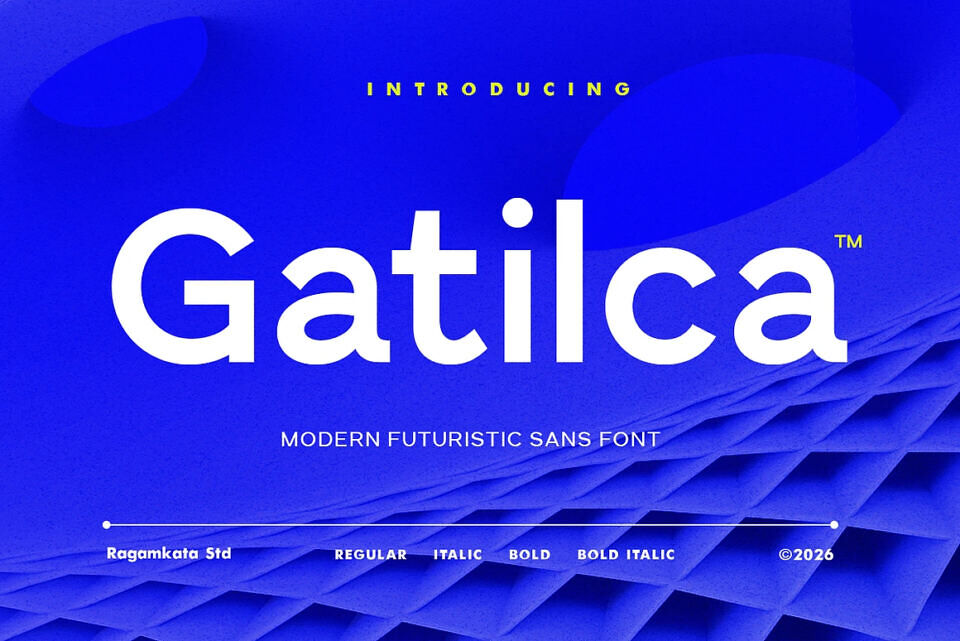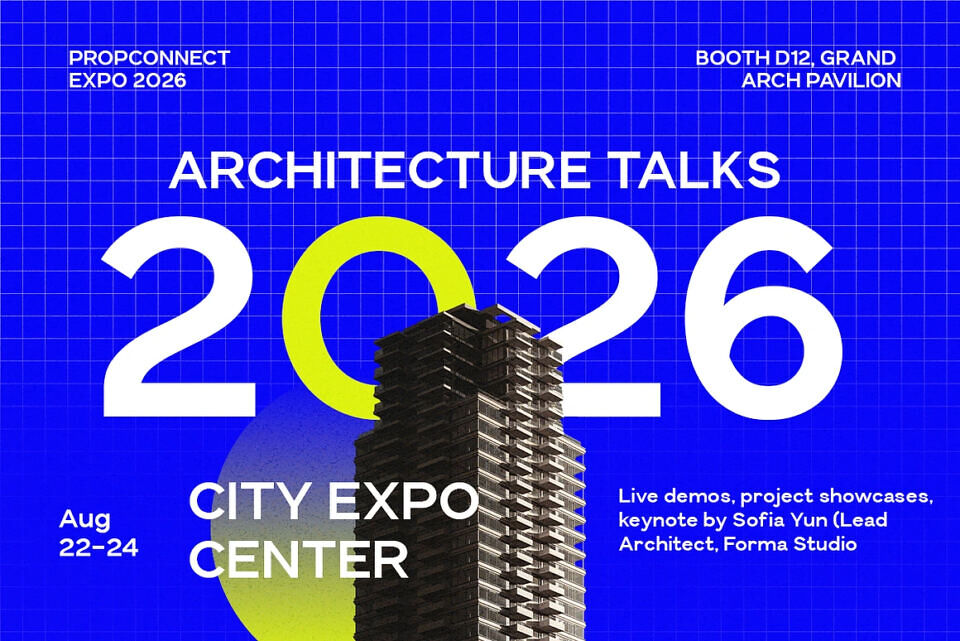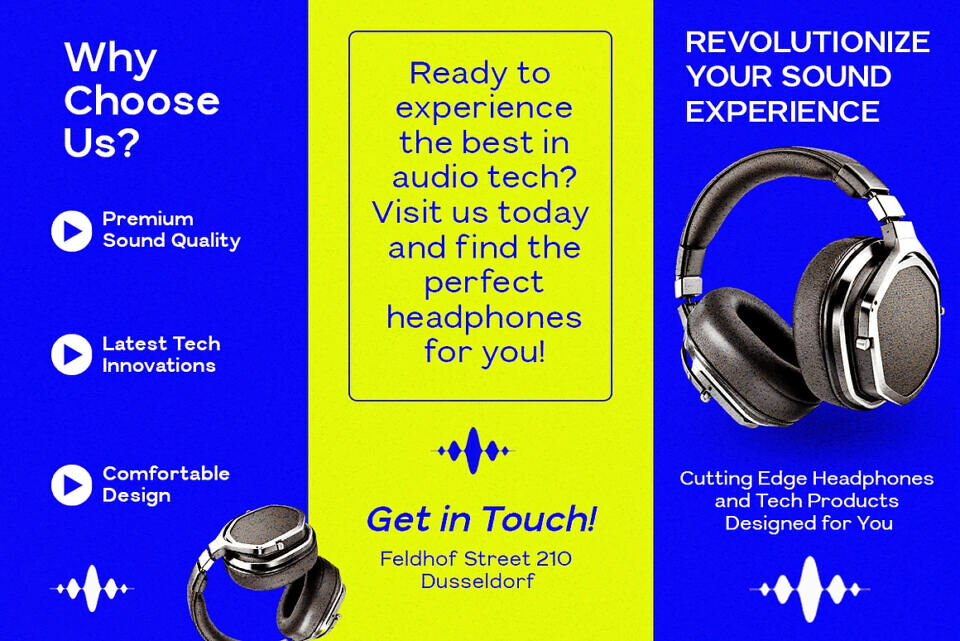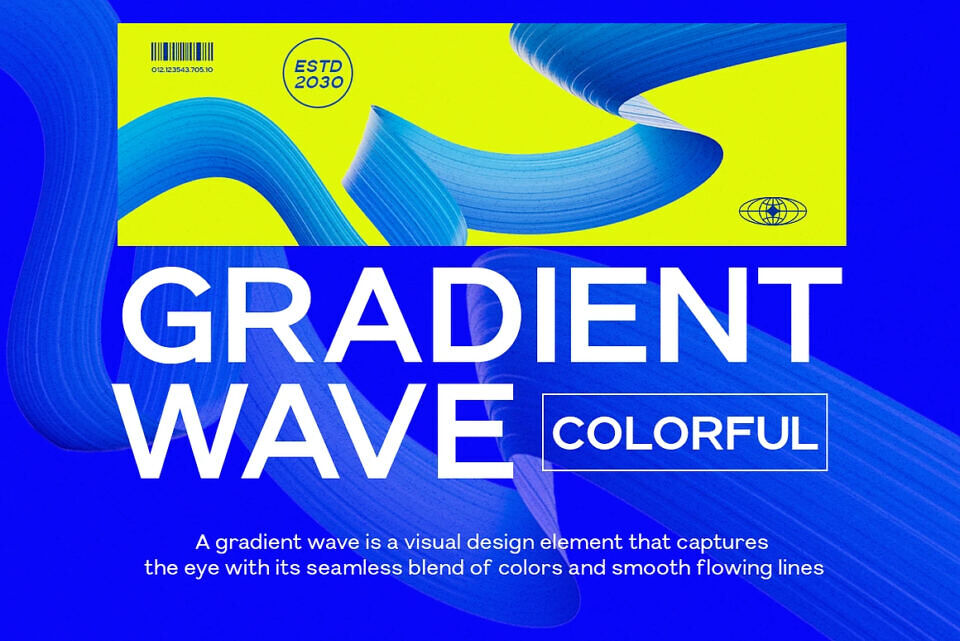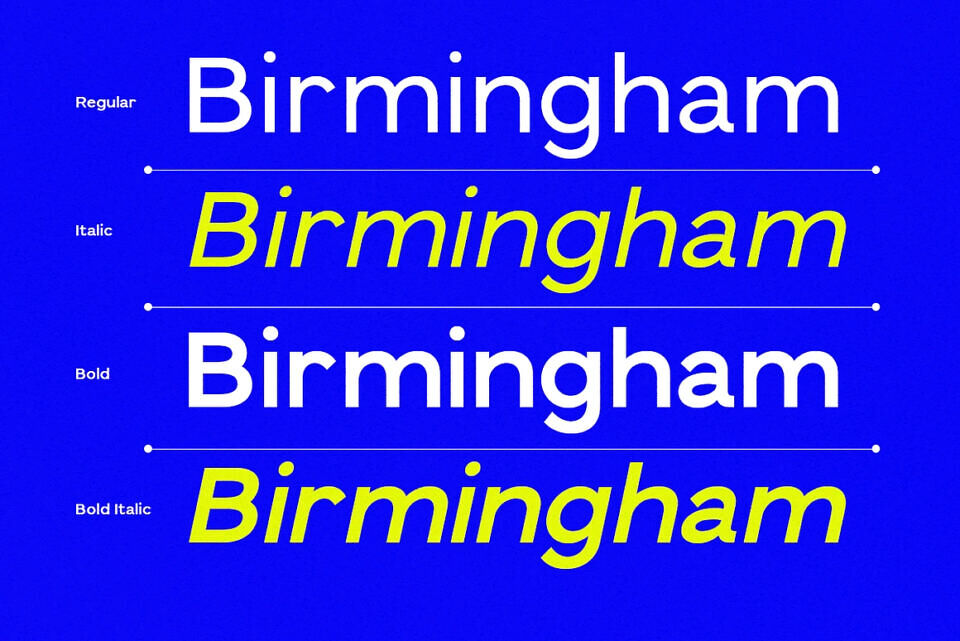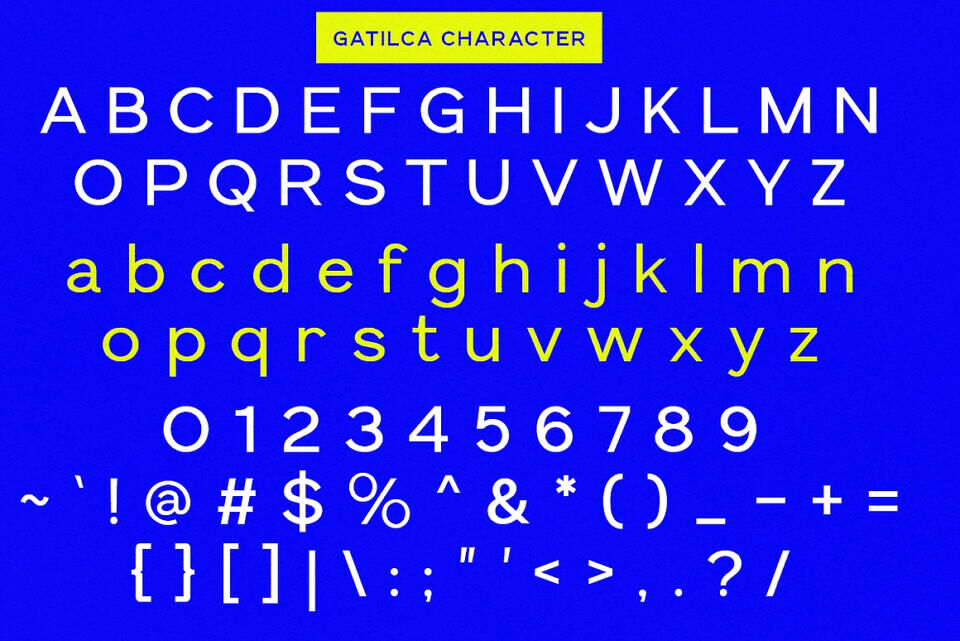
Gatilca is a modern futuristic sans font designed to deliver a clean, innovative, and forward-thinking visual identity. With its sleek geometric structure, balanced proportions, and contemporary letterforms, Gatilca brings a strong modern aesthetic that feels both professional and cutting-edge. The minimalist construction makes the font highly versatile while maintaining a distinctive futuristic character.
Gatilca is a versatile font perfect for tech and startup branding, gaming, and modern ads. Its bold style and clean lines make it suitable for digital and print use, from logos to UI design. Ideal for futuristic concepts, Gatilca helps designers create modern and impactful visuals for tech companies, innovative brands, and digital products, resulting in sleek designs that stand out.